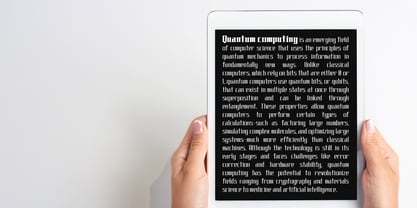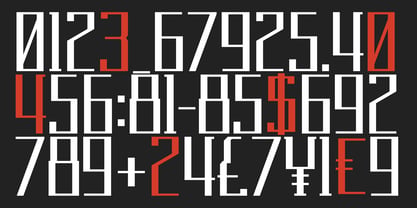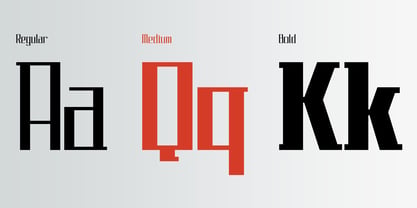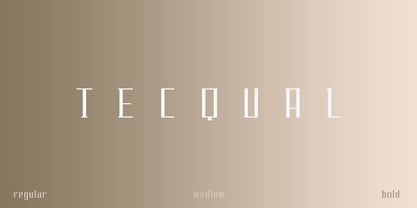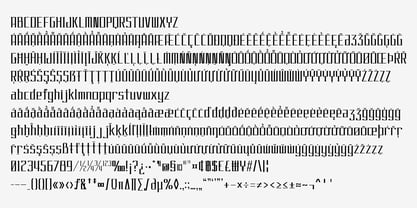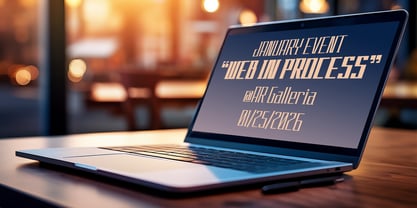
Tecqual
by Outerend
The Tecqual Font Family was designed by Taka Ikari and published by Outerend. Tecqual contains 3 styles and family package options. More about this family
Tecqual is a blocky, chunky sci-fi display typeface with a strong geometric foundation and a bold, futuristic presence. Inspired by typography imagined for sci-fi movies and tech-driven worlds, Tecqual blends modern design with a subtle nostalgic feel. Available in Regular, Medium, and Bold, it’s ideal for tech branding, movie and TV credits, posters, websites, games, and any project that needs a powerful, cinematic edge.
Designers: Taka Ikari
Foundry: Outerend